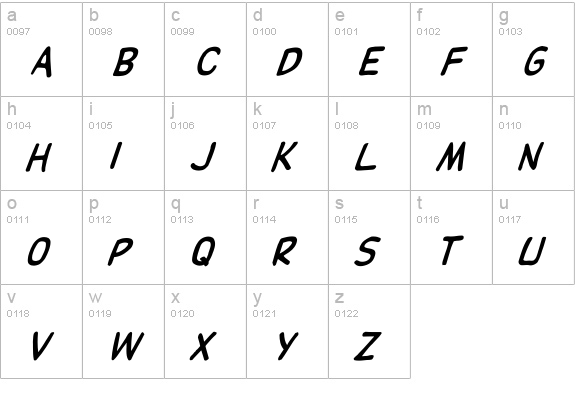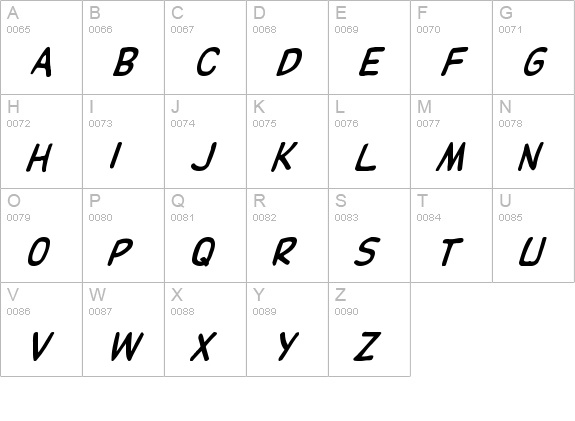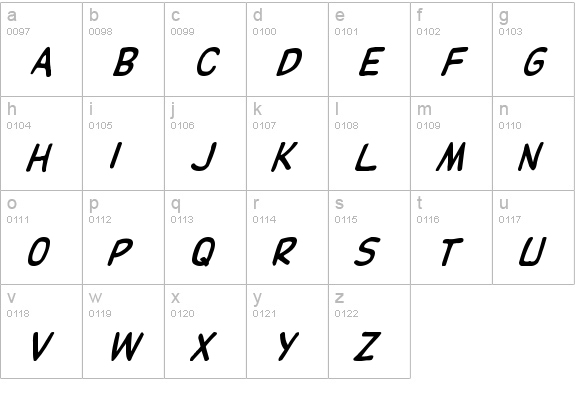
DupuyBALloon-It Font Details
The DupuyBALloon-It font is a whimsical and playful typeface that is sure to add a touch of fun to any design project. Its rounded shapes and bubbly letters give off a cheerful and lighthearted vibe, making it perfect for anything from birthday invitations to children's book covers. This font is freely available to download at FontsMarket.com, allowing designers and creatives to easily access and incorporate it into their work without any cost. With its unique and eye-catching style, DupuyBALloon-It is a fantastic choice for those looking to add a touch of personality and charm to their designs. Let your creativity soar with this delightful and free font option!